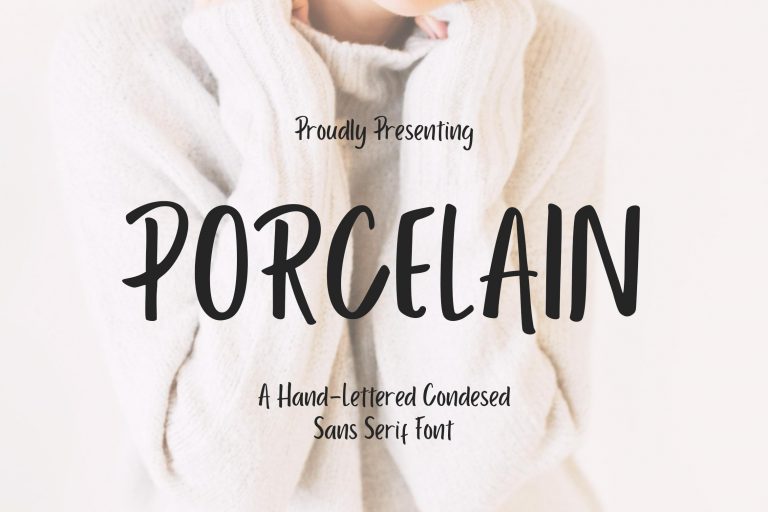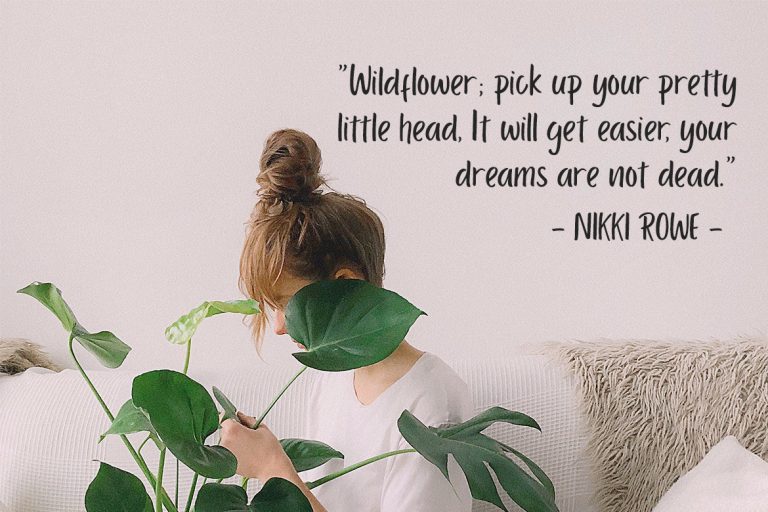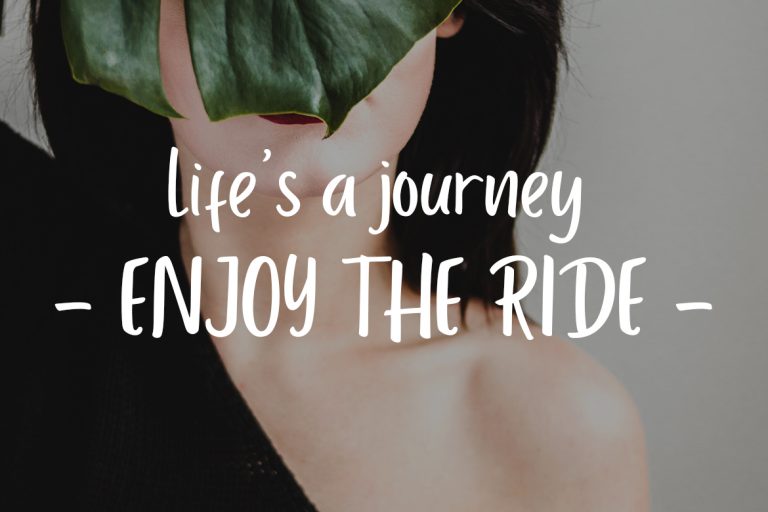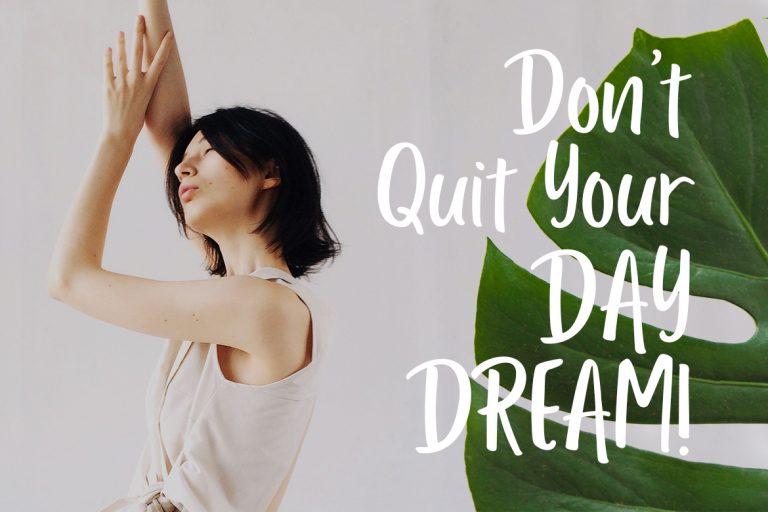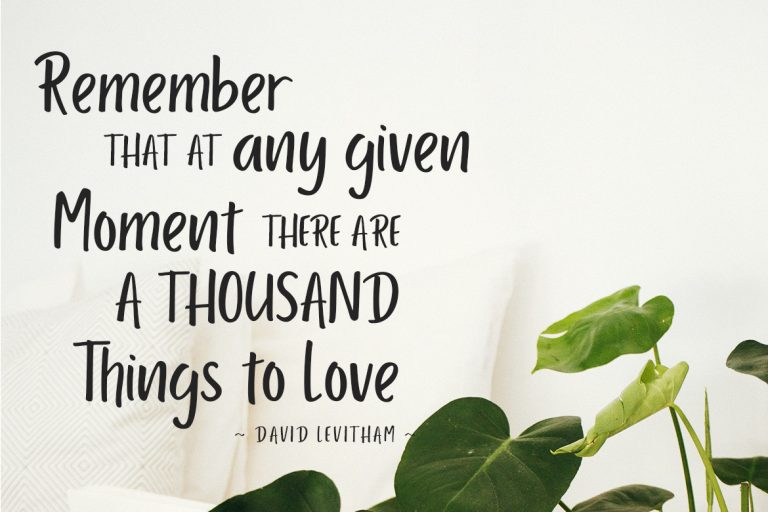
Porcelain is a hand-lettered condensed sans serif font with subtle dip-pen texture to get that personal touch feel.
Porcelain is perfect for branding projects, logo, wedding designs, social media posts, advertisements, product packaging, product designs, label, photography, watermark, invitation, stationery and any projects that need handwriting taste.
• Fonts include multilingual support for; ä ö ü Ä Ö Ü ß ¿ ¡
Porcelain Sans Serif